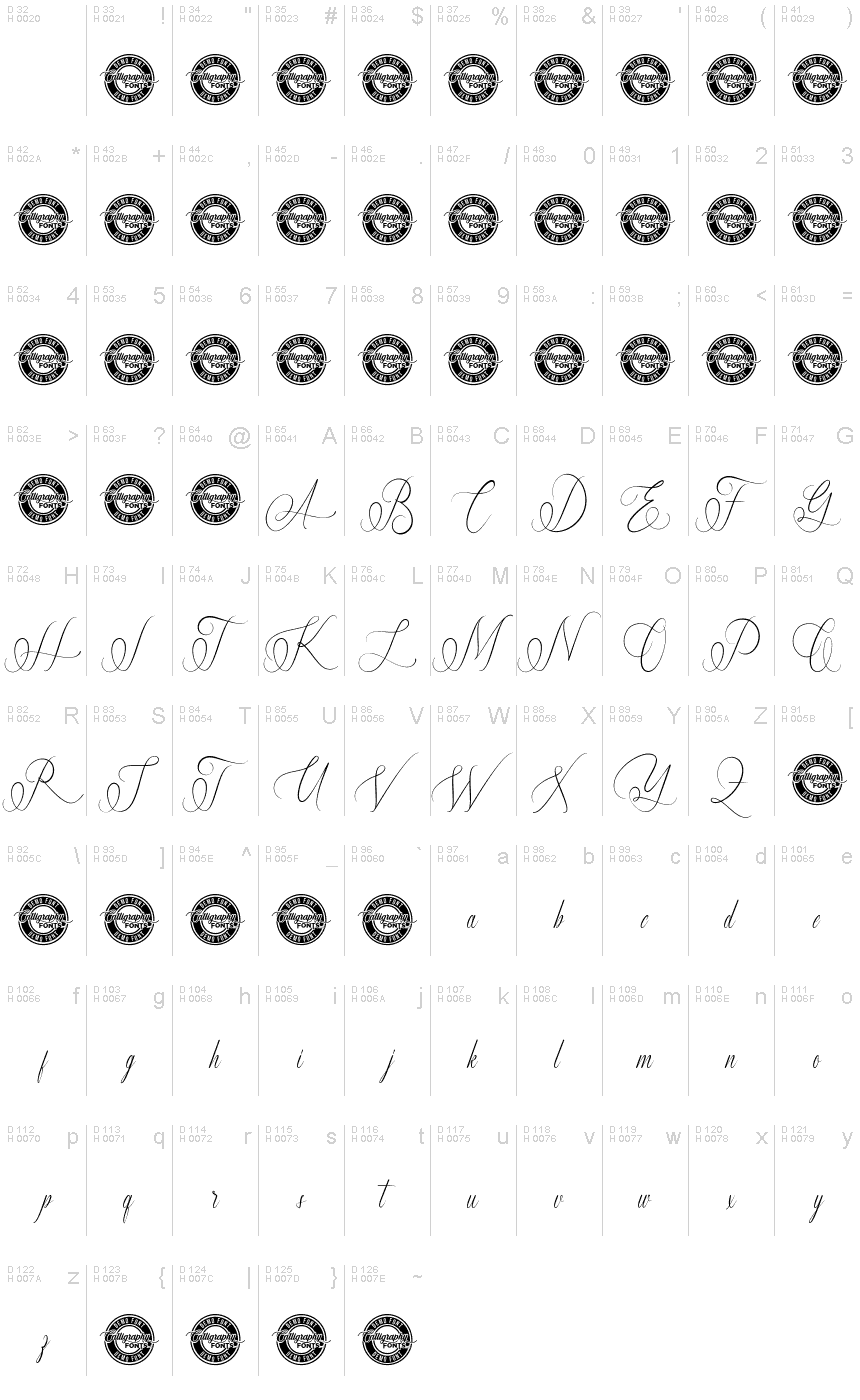
Louis Ahera Demo
Introducing Louis Ahera Demo, a beautiful script font crafted by Widiyanti & Suci Anita. This thin, narrow calligraphy font is perfect for adding elegance to wedding invitations and other special occasion projects.